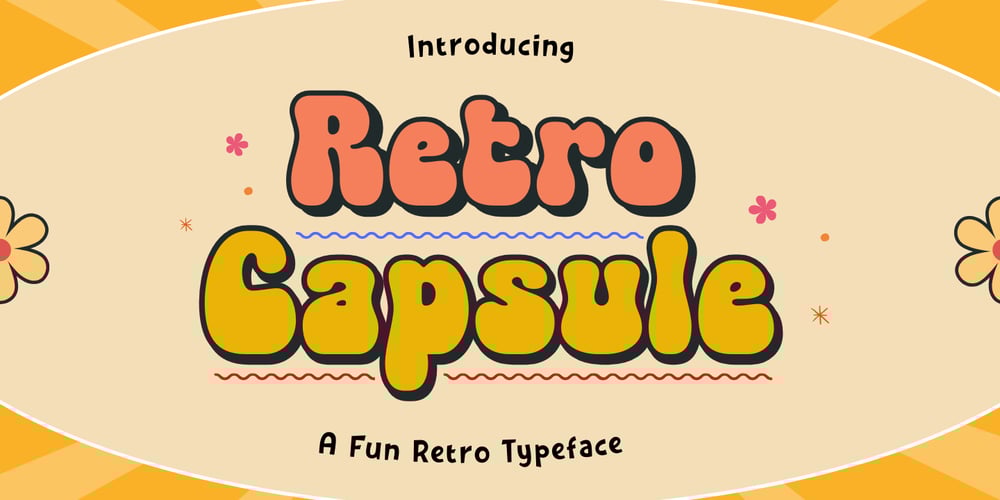
Retro Capsule
Retro Capsule font
Retro Capsule Font Family was designed by Muhamad Yusron Billah and published by Sronstudio. Retro Capsule contains 1 styles and family package options. Retro Capsule is a playful retro font inspired by vintage capsule designs. Its bold, rounded shapes bring a nostalgic feel to any project, perfect for adding a fun and quirky touch to posters, logos, branding, and more. With its unique blend of retro and modern elements, Retro Capsule adds a pop of personality to your design work!Included: Upper & Lowercase Numeral & Punctuation PUA Encoded Multilingual support Simple Installation Work both on Mac and Windows Thank you very much 🙂